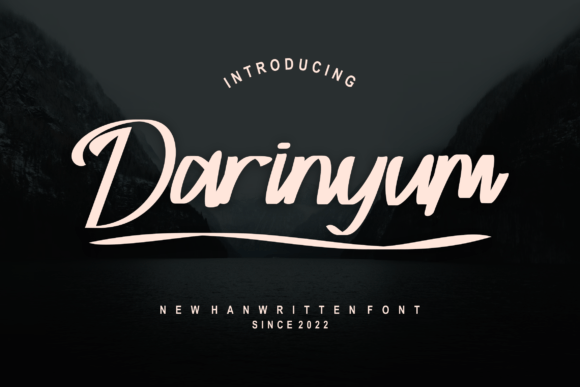
Dive into the world of modern elegance with Darinyum Font, a captivating script font family that will transform your creative projects. Experience the allure of meticulously crafted characters, each stroke imbued with a touch of artistic brilliance. This font is a true testament to the power of typography, designed to leave an unforgettable impression on your audience.
Unleash your creativity with Darinyum Font, and watch as your words and designs come to life. Whether you're crafting social media posts, designing logos, or creating invitations, this font will effortlessly elevate your work. Its timeless appeal and versatile nature make it the perfect choice for a wide range of projects.
Immerse yourself in the beauty of Darinyum Font's flowing curves and delicate flourishes. Each letterform dances across the page, creating a harmonious rhythm that draws the eye. The font's carefully balanced contrast between thick and thin strokes adds a touch of intrigue, making it a captivating choice for headlines, posters, and branding materials.
Elevate your digital presence with Darinyum Font. Its bold and confident personality shines through, making it an ideal choice for projects that demand attention. Whether you're creating eye-catching social media graphics, designing a professional website, or crafting promotional materials, this font will ensure your message stands out from the crowd.